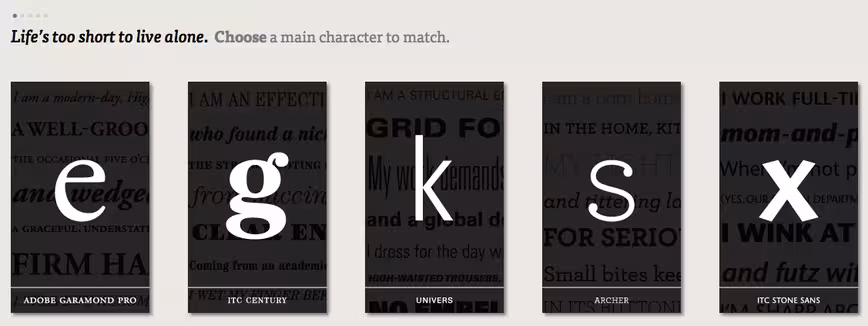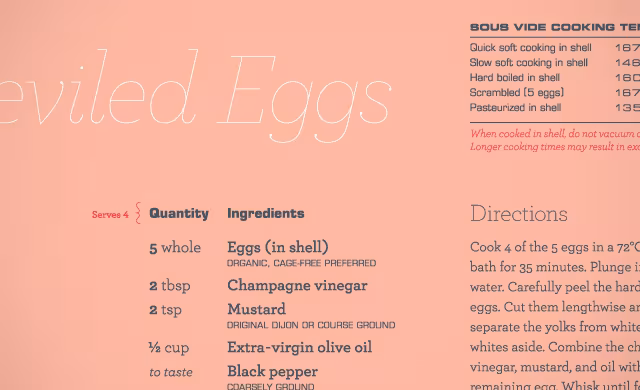
This typographic dating game teaches designers how to pair typefaces
While a dating game sounds rather out of the ordinary to the world of typography, designer Aura Seltzer’s Type Connection turns the complicated process of matching typefaces into a very entertaining learning opportunity.
First, you start by choosing a typeface to pair. Like a conventional dating website, Type Connection presents you with potential “dates” for each main character.
The game features well-known, workhorse typefaces (Garamond, Univers, Archer, etc.) and portrays each as a character searching for love. You are the matchmaker. You decide what kind of match to look for by choosing among several strategies for combining typefaces. Strategies include things like opposites attract, the importance of family (font families) and seeking similarities.
After selecting your typeface and picking a pairing strategy, you’ll be presented with three eligible matches. Select a match and then compare the differences between the two faces. Then, send them on a date to observe how well the pairing went!
Note that not all pairings work, and the site will intervene if things go awry. For example, don’t try to pair Maple with Univers. That’s bad.
Above is an example of Archer & Eurostile, a compatible match:
Archer and Eurostile know their shapes. Archer is a slab that praises circles, while Eurostile is a sans that follows widened squares. Archer’s lighter weights, open forms, and tall ascenders find company in Eurostile’s thick monolinearity and compact letters. Intentional curves, a double-story a, and a single-story g define both, as does their perceived overuse.
Along the way, you explore typographic terminology, type history and more. By playing Type Connection, new and non-designers have a rare opportunity to observe a lot of the techniques used to match typefaces. For more experienced designers, it’s simply a fun exercise that helps deepen your understanding of typography.